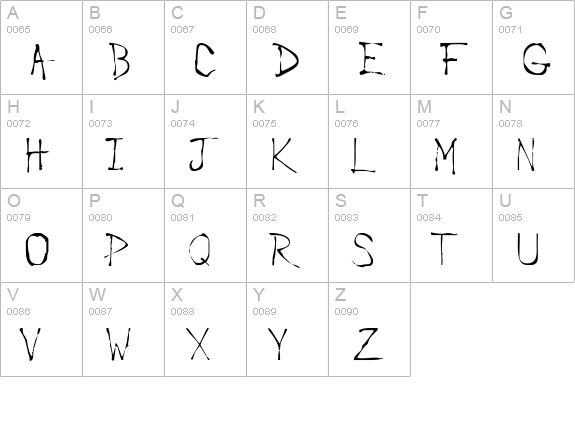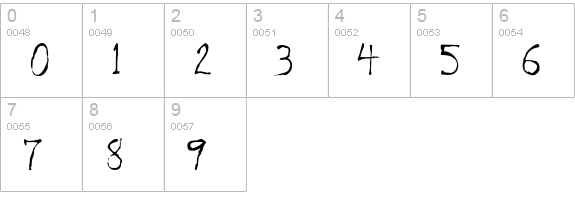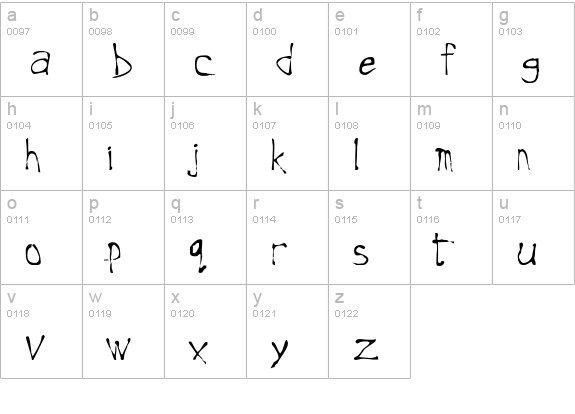
Roughedge Font Details
Roughedge font is a striking and edgy typeface that exudes a raw and rugged aesthetic. Its jagged edges and bold strokes make it perfect for designs that require a touch of rebelliousness and attitude. Whether you are creating posters, album covers, or branding materials, Roughedge font will surely make a bold statement. The best part? Roughedge font is completely free to download at FontsMarket.com. So go ahead and unleash your creativity with this unique and impactful typeface. Stand out from the crowd and make a lasting impression with Roughedge font in your designs.